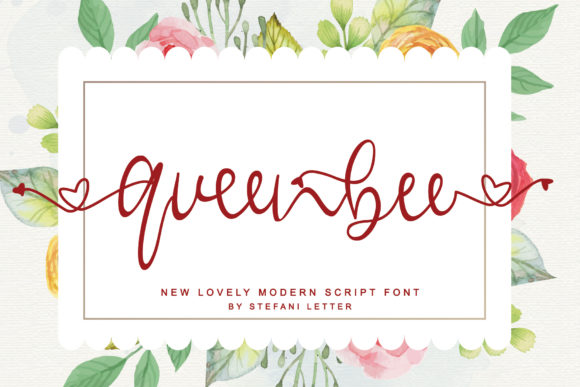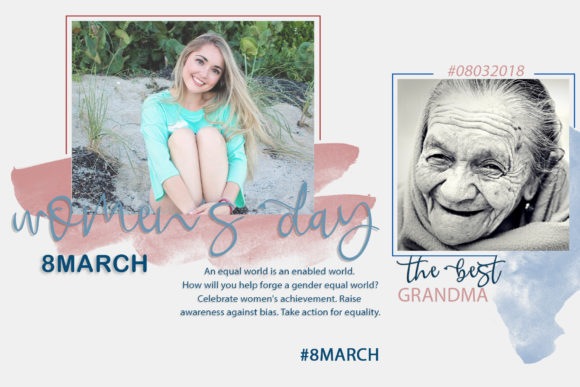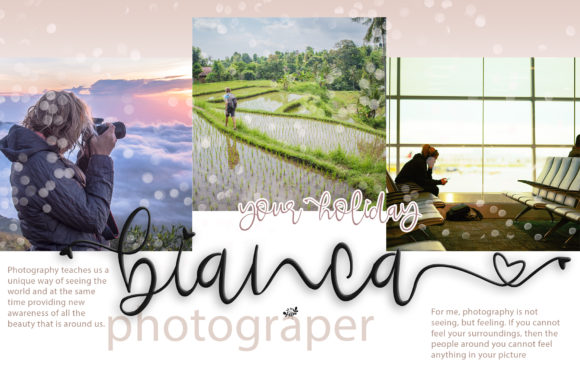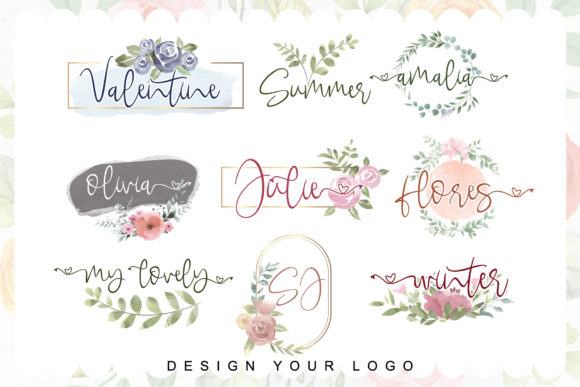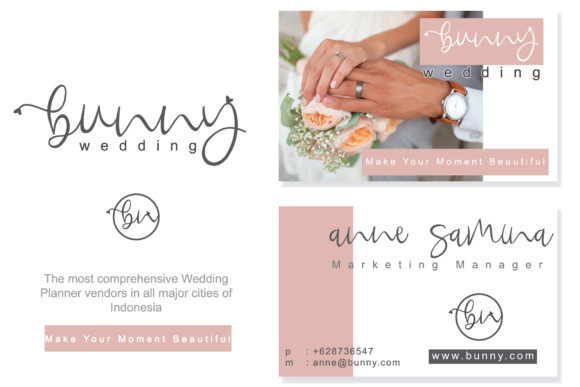
Queenbee Font
About Queenbee Font
Queenbee is a sweet and cute handwritten font with special heart characters. Get inspired by its authentic feel and use it to create gorgeous wedding invitations, beautiful stationary art, eye-catching social media posts, and cute greeting cards.